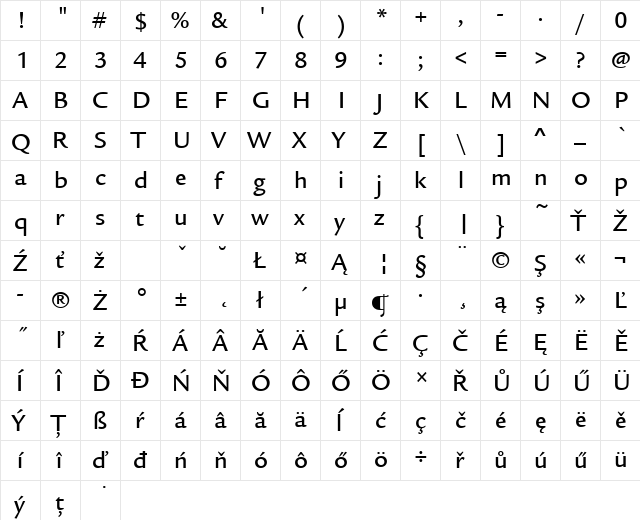
LegacySanItcTEEMed Regular
Design Context for LegacySanItcTEEMed Typeface
LegacySanItcTEEMed takes a measured approach to typography — its balanced proportions and neutral character make it a reliable workhorse for both digital and print work.